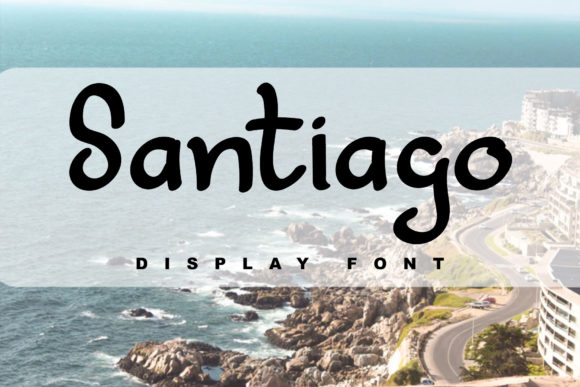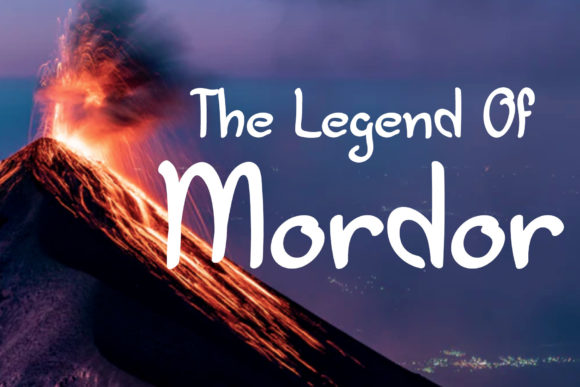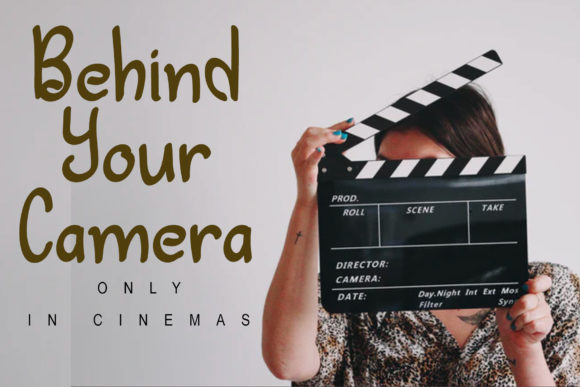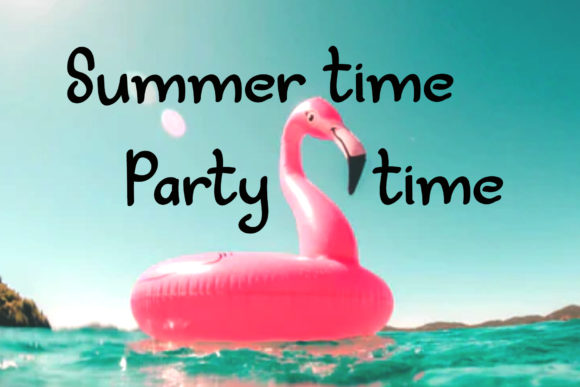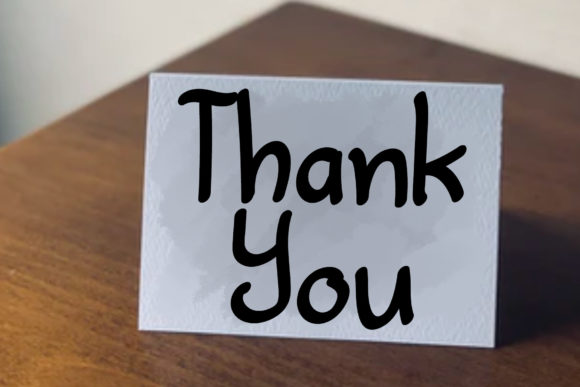
Santiago Font
About Santiago Font
Santiago is a chic and refined script font that exudes sophistication and elegance. With its stylish alternates and ligatures, this font is the perfect choice for any project that requires a touch of class.
The sleek and graceful strokes of Santiago give it a sophisticated appearance, making it suitable for a wide range of design purposes. Whether you’re creating branding materials, wedding invitations, logos, or elegant headlines, Santiago adds a sense of style and refinement to your designs.
One of the standout features of Santiago is its stylish alternates and ligatures. These unique variations of letters and connecting elements add a touch of elegance and flair to your text. They create a harmonious flow and enhance the overall aesthetic appeal of your design.
The versatility of Santiago allows it to adapt to various design styles and themes. It complements both modern and traditional aesthetics, making it a versatile choice for different projects. Its refined and elegant look makes it ideal for luxurious brands, fashion, beauty, and lifestyle designs.
In addition to its visual appeal, Santiago is also legible and easy to read. Its carefully crafted letterforms ensure clarity and readability, even at smaller sizes. This makes it suitable for both headlines and body text, allowing you to maintain consistency and visual harmony throughout your design.
Whether you’re designing for print or digital platforms, Santiago’s timeless elegance and attention to detail make it a reliable choice. It elevates your design projects and adds a touch of sophistication that captures the attention of your audience.
In summary, Santiago is a chic and refined script font that radiates sophistication and elegance. Its stylish alternates and ligatures enhance the overall appeal of your designs, making it a versatile choice for a wide range of projects. Embrace the class and elegance of Santiago to create visually stunning and impactful designs.